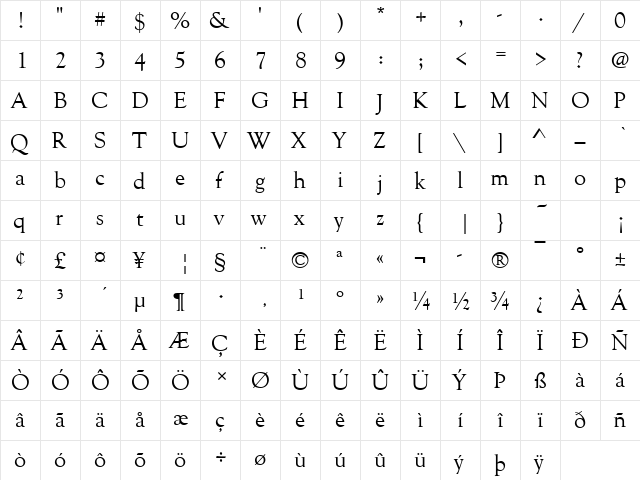
Goudy Becker Old Style Regular
Design Context for Goudy Becker Old Style Typeface
Goudy Becker Old Style offers clean, dependable letterforms without strong stylistic allegiance, making it a practical choice for designers who need flexibility.
Pro Tip: Pair Goudy Becker Old Style with a font of contrasting weight or personality to build a more expressive typographic hierarchy.